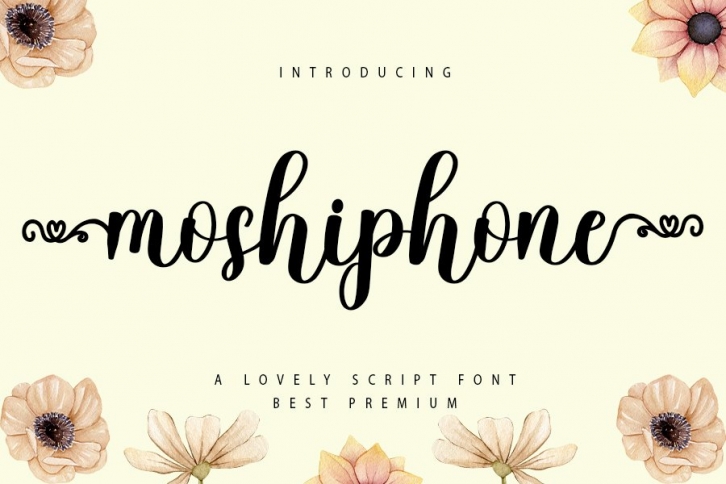
Moshiphone is a trendy and unique font with an authentic style. It was designed by FreshType INK and it's a great choice for creative people who need such a font. It was released on December 19, 2021 and the file size is 6.4 MB. Moshiphone will add an organic vibe to any design idea!